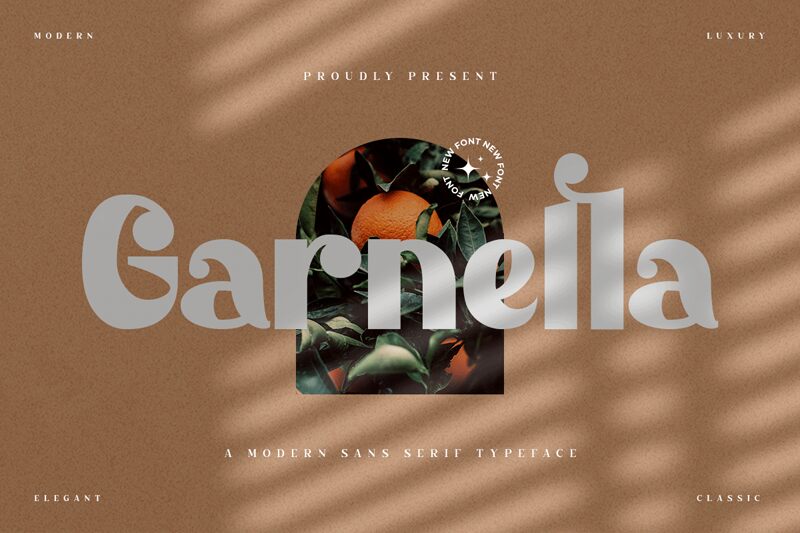
Garnella
Garnella font by Kong Font is a free bold display font with a retro style. Decorative, expressive, and eye-catching, its printed characters can serve drama for personal projects while capturing the reader’s attention. Each letter is unique, presenting marvelous uniformity on different scales.
There are countless ways to use Garnella including posters, magazine covers and design covers, logotypes and album art designs. Moreover, its headlines would entirely transform the look of flyers and ads that end up printed or online.